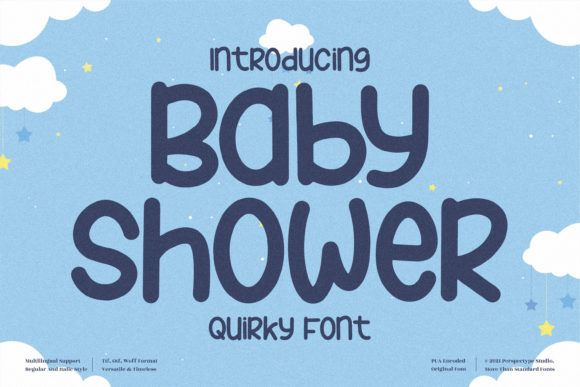
Introducing the captivating and versatile Baby Shower Font, a delightful addition to your font collection. Designed by Perspectype, this quirky display font is sure to elevate your creative projects to new heights. With its well-rounded and playful characters, Baby Shower Font is the perfect choice for a wide range of design endeavors.
Are you in need of a font that adds a touch of whimsy and charm to your branding projects? Look no further! Baby Shower Font is here to bring a fun and quirky taste to your logos and branding materials. Its unique and eye-catching aesthetic will leave a lasting impression on your audience, ensuring your brand stands out from the crowd.
But the versatility of Baby Shower Font doesn't stop there. Whether you're working on homeware designs, product packaging, or any other lovely project, this font is your go-to solution. Its adaptability allows it to seamlessly blend into various creative contexts, providing you with endless possibilities.
One of the many reasons to download Baby Shower Font is its ability to evoke emotions. This font has a certain warmth and playfulness that instantly brings joy to any design. Imagine the smiles it will bring to your customers' faces when they encounter your brand or product adorned with this delightful font.
Furthermore, Baby Shower Font is a keyword-rich font, making it an ideal choice for improving your website's visibility. If you're looking for the best font to use for your website, this is it! By incorporating this font into your website's design, you not only enhance its visual appeal but also improve its search engine optimization. It's a win-win situation!
In conclusion, Baby Shower Font is a must-have for anyone seeking a font that exudes creativity, charm, and versatility. Its well-rounded and playful characters, combined with its ability to evoke emotions, make it the perfect choice for a wide range of design projects. So why wait? Download Baby Shower Font today and let your creativity soar to new heights!